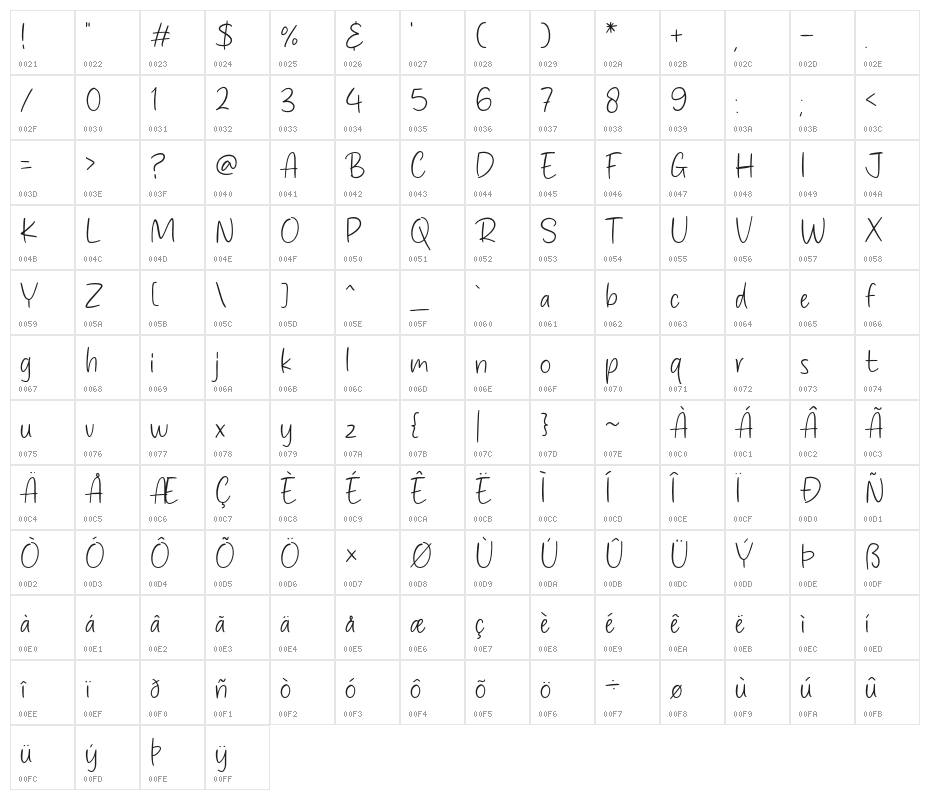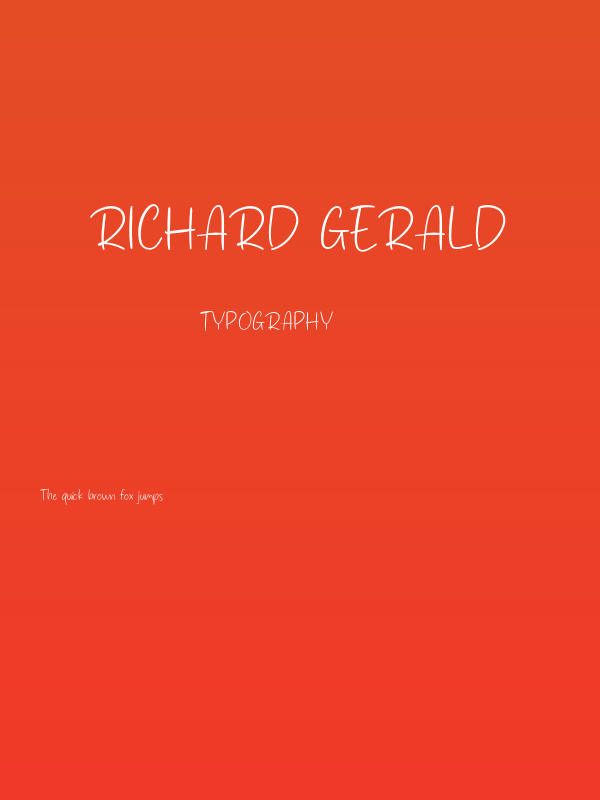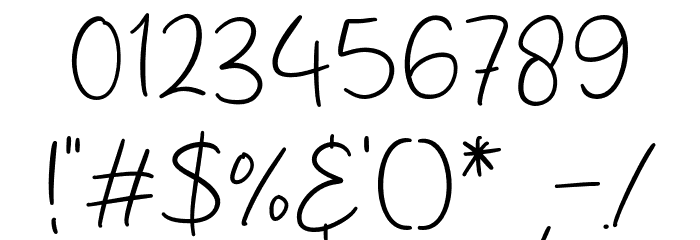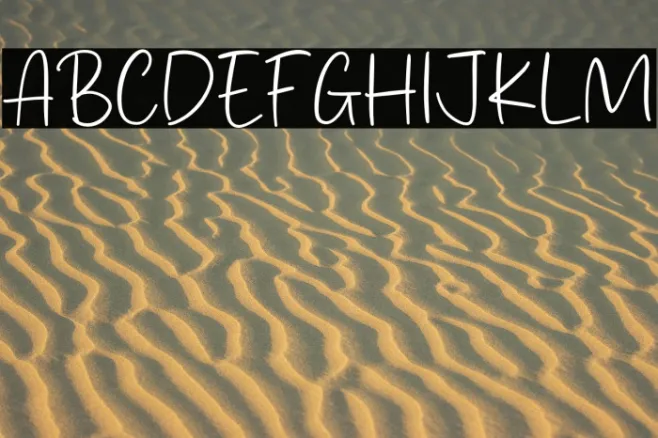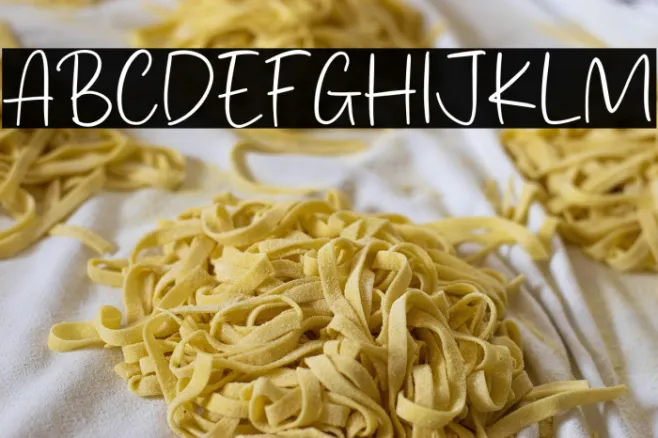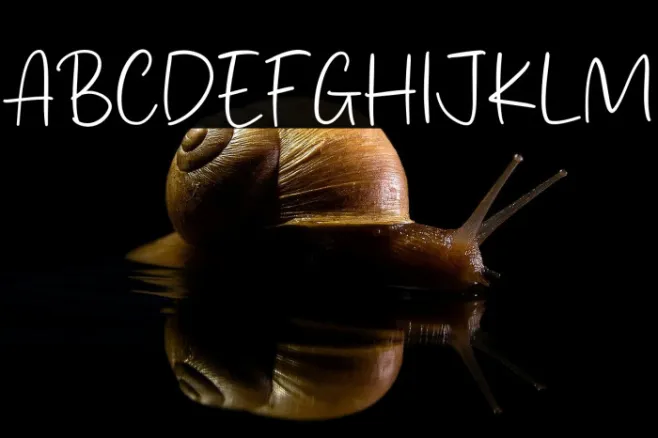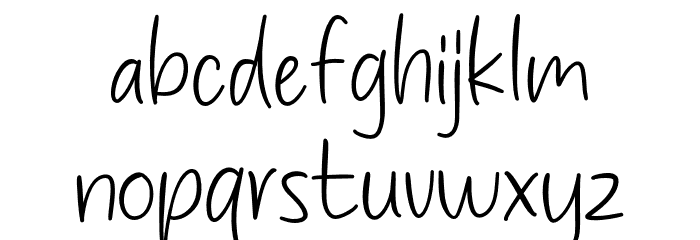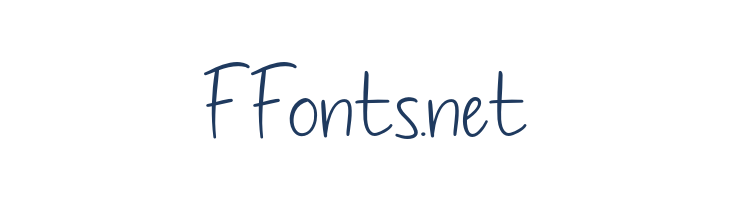
Richard Gerald Font
Richard Gerald Description
This font features a casual and playful handwritten style, characterized by its smooth, flowing lines and slightly irregular shapes. The letters are connected in a way that mimics natural handwriting, giving it a personal and approachable feel. The strokes are consistent in width, providing a uniform appearance across all characters. The font maintains a balanced and harmonious look, making it suitable for projects that require a friendly and informal touch. Its legibility is enhanced by the clear distinction between each letter, despite the cursive nature.
| Use Case | Logos, Headlines, Informal text |
| Proposed Projects | Ideal for personal invitations, greeting cards, casual branding, and social media graphics. |